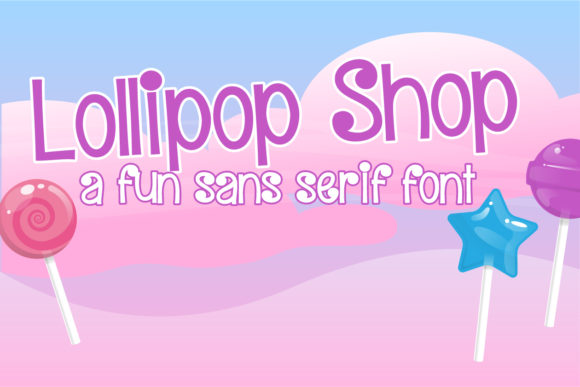
Prepare your designs to taste the sweet sensation of the Lollipop Shop font! Indulge in the delightful dance of round curves and crisp lines that will leave a lasting impression on your audience. This playful sans-serif typeface is crafted by the talented artists at Illustration Ink, bringing a touch of sugary charm to all your creative endeavors.
Unleash your imagination and watch as the Lollipop Shop font transforms your designs into delectable treats. Its friendly and inviting nature makes it an irresistible choice for branding, packaging, and any project that calls for a dash of whimsy. The eye-catching contrast between the sharp angles and soft curves adds a captivating dimension that will make your creations stand out from the crowd.
But beware, the Lollipop Shop font is not just a pretty face—it's a versatile performer that adapts effortlessly to a wide range of design styles. Whether you're crafting elegant invitations, playful posters, or eye-catching social media graphics, this font will add a touch of sweetness that's sure to delight.
So why settle for ordinary when you can indulge in the extraordinary? Dive into the world of the Lollipop Shop font and let its captivating charm ignite your creativity. Its versatility and playful spirit will empower you to create designs that are as unique and unforgettable as a freshly spun lollipop. Experience the sweet sensation of the Lollipop Shop font today and elevate your designs to new heights of sugary delight!